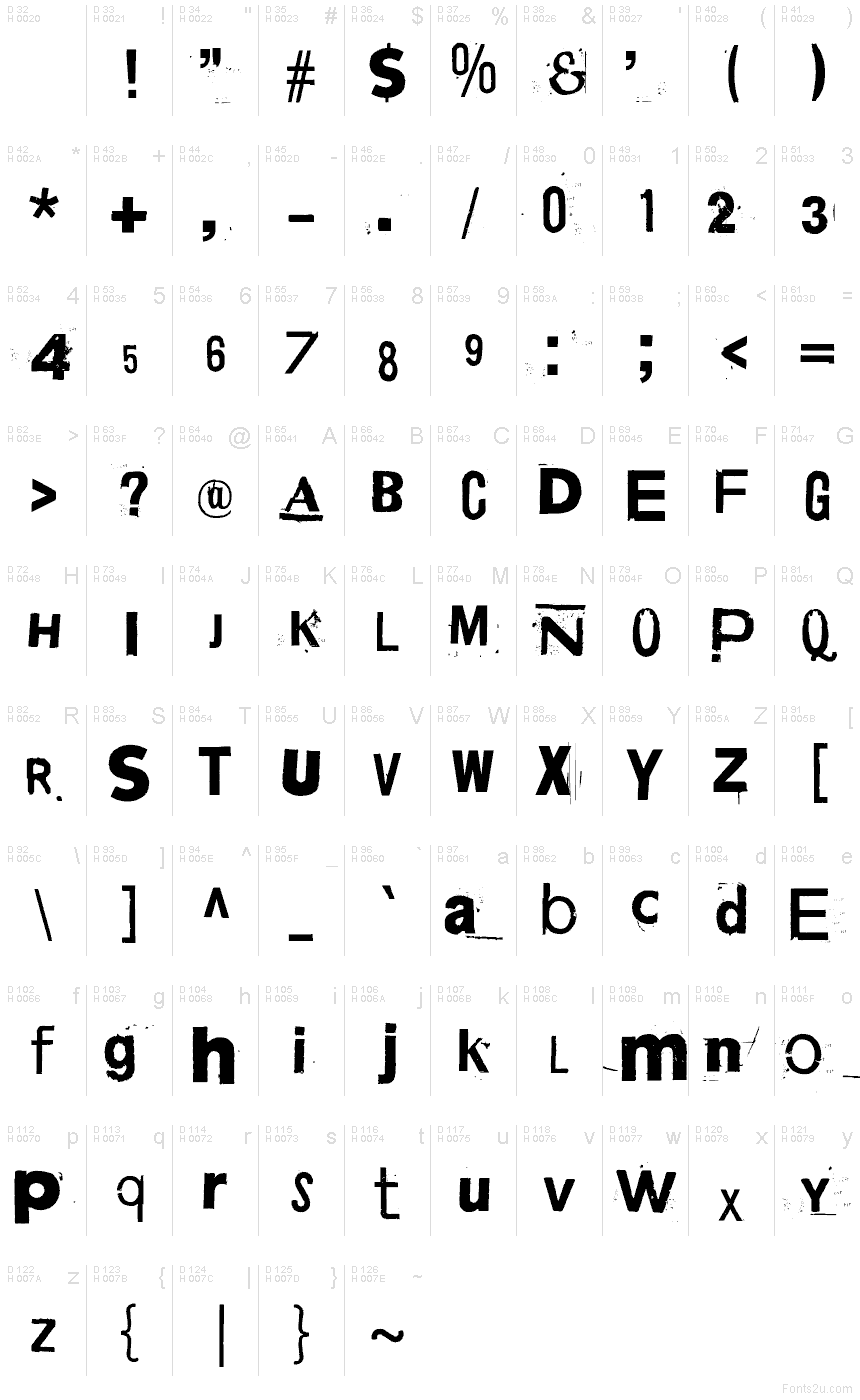
Zaza Zip Gongh! ZNC. Klink!
Zaza Zip Gongh! ZNC. Klink! font by junkohanhero is a display distorted font that embodies hard-edged, distressed aesthetics. The chaotic texture of the bold letters gives it a gloomy and almost unreadable feel. Urban influence is also perceived through an uneven, root-like stem appearance that balances the overall look.
As a free display font, use it artistically for delicate projects such as branding, book covers, label design, music album covers, logotypes poster printing, motion graphics titles design sci-fi (maybe horror) movies games packaging and any other project you see fit.